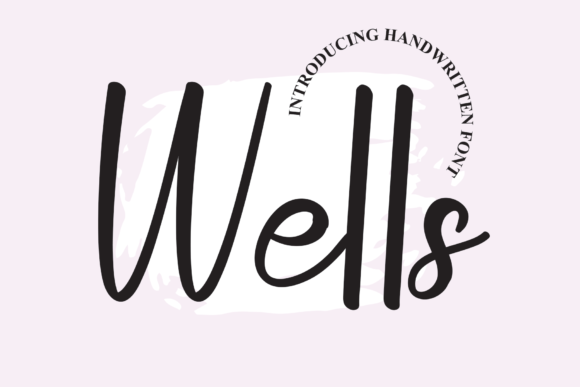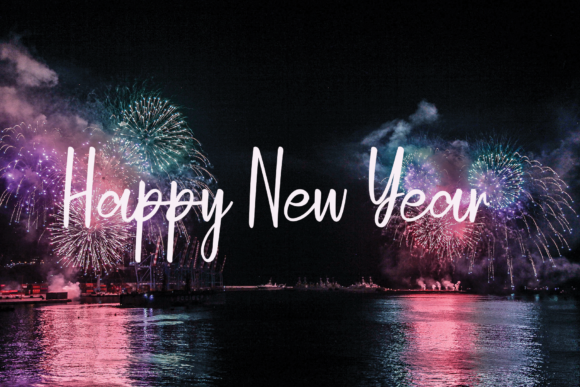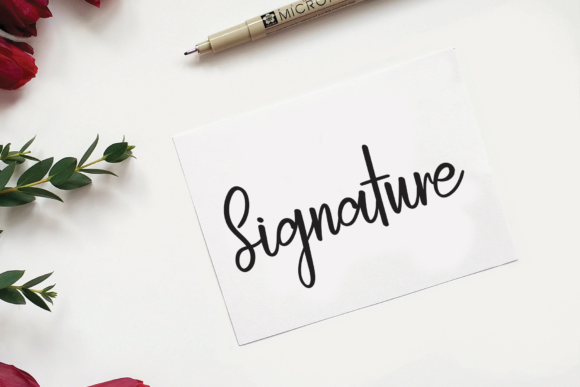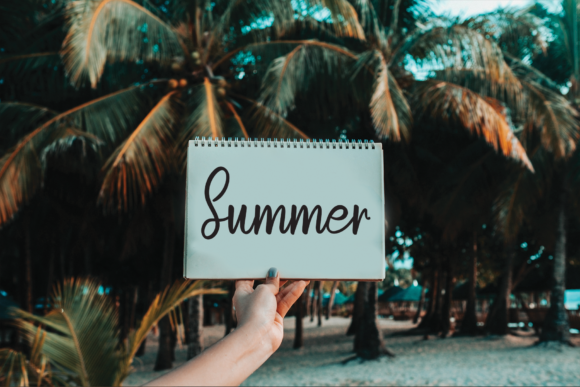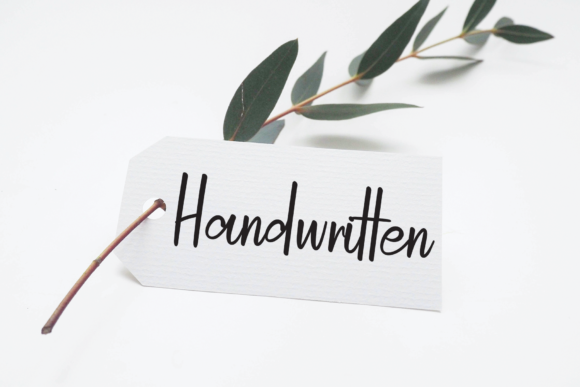
Wells Font
About Wells Font
Wells is a versatile and elegant handwritten font that offers a touch of simplicity and uniqueness to your design projects. Its adaptability makes it well-suited for a wide range of applications, allowing you to effortlessly infuse a touch of sophistication into your creations.
The simplicity of Wells’ design is one of its standout features. The clean and straightforward strokes of each letter contribute to a sense of clarity and readability, making it an ideal choice for various design purposes. Whether you’re using it for formal wedding invitations or casual social media posts, the font’s simplicity ensures effective communication of your message.
The uniqueness of Wells sets it apart from more conventional fonts. Its handcrafted appearance imparts a distinct character to your designs, adding a sense of personality and charm. This uniqueness becomes especially valuable when you’re aiming to create memorable and eye-catching visuals that leave a lasting impression.
Wells’ adaptability is a significant asset for your design endeavors. Its clean and elegant style enables it to seamlessly blend with different design aesthetics, making it suitable for both refined and casual contexts. Whether you’re crafting a sophisticated business card or a playful greeting card, Wells can be tailored to match the tone and style of your project.
The handwritten quality of the font introduces a touch of authenticity and warmth to your designs. This personal and relatable element establishes a connection with your audience, fostering engagement and resonance. This can be particularly impactful when used in personal projects like wall art or custom social media graphics.
Incorporating Wells into your design projects is made effortless by its adaptability and readability. The font’s clarity ensures effective conveyance of your message, and its elegant style elevates the overall visual appeal of your work. Its versatility grants you the freedom to experiment with various design elements while maintaining a cohesive and polished appearance.
Whether you’re crafting wedding materials, business branding, or social media content, Wells’ simplicity, uniqueness, and adaptability make it a reliable and elegant choice. Its handcrafted charm and clean lines bring a touch of sophistication to your projects, enabling you to create visually captivating and engaging designs across a spectrum of platforms.